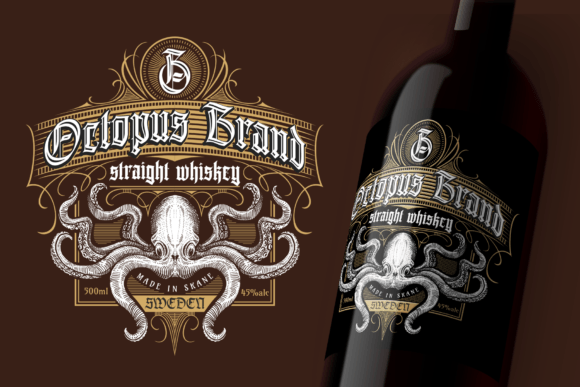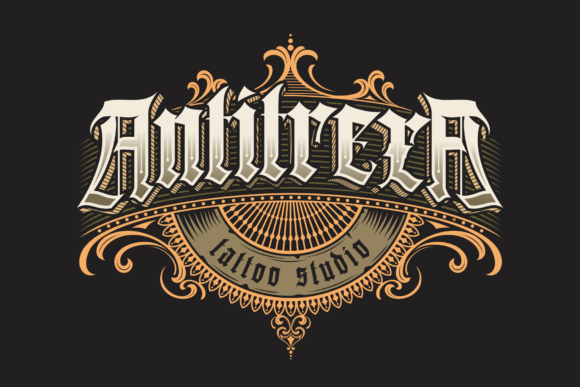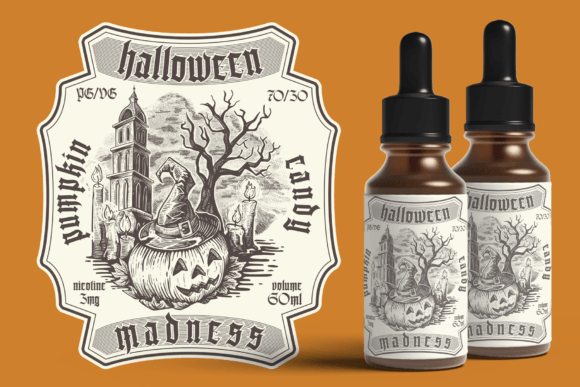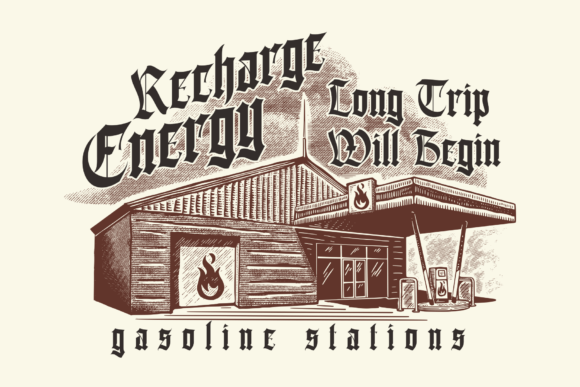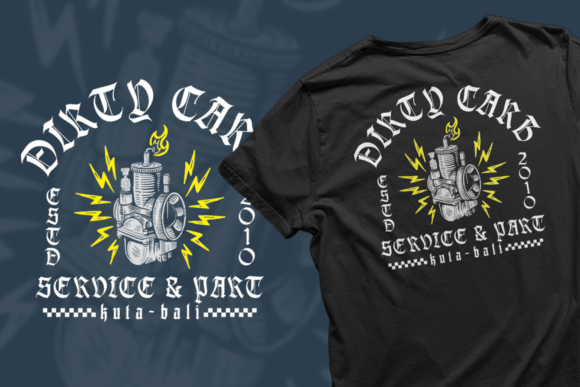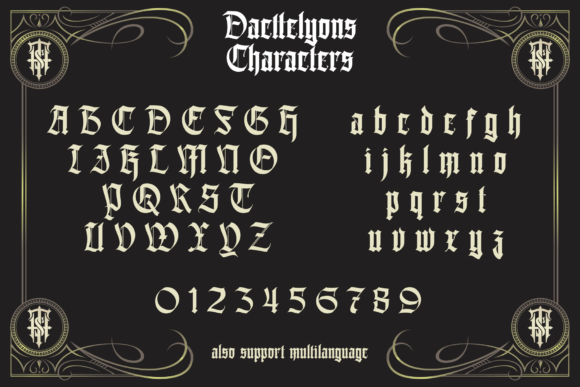
Dacttelyons Font: A Gothic-Inspired Blackletter Typeface for Vintage Designs
In the realm of typography, fonts play a crucial role in conveying the tone and aesthetic of a design. For designers and crafters seeking a vintage look with a dark feel, the Dacttelyons font is an excellent choice. Inspired by the Gothic era, this blackletter typeface is perfect for creating striking designs that evoke a sense of mystery and elegance.
The Inspiration Behind Dacttelyons
Dacttelyons is a font that draws inspiration from the Gothic era, a period characterized by grandeur, mystery, and ornate details. The font’s design is rooted in traditional blackletter typography, with intricate lines and flourishes that evoke a sense of nostalgia and timelessness. The creators of Dacttelyons aimed to capture the essence of this era, distilling its essence into a modern font that can be used in various design applications.
Design Characteristics of Dacttelyons
Dacttelyons is a blackletter typeface that features:
- Intricate lettering: The font boasts intricate lines, curves, and flourishes that give it a distinctive Gothic feel.
- Dark and bold: Dacttelyons is a bold font that commands attention, making it perfect for designs that require a strong visual impact.
- Vintage aesthetic: The font’s design is inspired by traditional Gothic typography, giving it a unique and timeless look.
Uses of Dacttelyons in Graphic Design
Dacttelyons is a versatile font that can be used in a wide range of graphic design applications, including:
- Branding materials: Use Dacttelyons to create striking logos, business cards, and letterheads that convey a sense of sophistication and elegance.
- T-shirts and apparel: The font’s bold design makes it perfect for printing on t-shirts, hoodies, and other apparel.
- Prints and posters: Dacttelyons is ideal for creating eye-catching prints, posters, and flyers that require a strong visual impact.
- Logos and icons: The font’s unique design makes it suitable for creating custom logos and icons that require a distinctive look.
- Packaging design: Use Dacttelyons to create striking packaging designs that stand out on store shelves.
Why Choose Dacttelyons?
With so many fonts available, why choose Dacttelyons? Here are a few reasons:
- Unique design: Dacttelyons offers a distinctive look that sets it apart from other fonts.
- Versatility: The font can be used in various design applications, from branding materials to packaging design.
- Ease of use: Dacttelyons is easy to read and works well in both digital and print formats.
Tips for Using Dacttelyons Effectively
To get the most out of Dacttelyons, follow these tips:
- Use it sparingly: Dacttelyons is a bold font, so use it sparingly to avoid overwhelming the design.
- Pair it with complementary fonts: Combine Dacttelyons with complementary fonts to create visual interest and hierarchy.
- Experiment with colors: The font’s dark design works well with a range of colors, so experiment to find the perfect combination.
Dacttelyons is a versatile and striking font that is perfect for designers and crafters seeking a vintage look with a dark feel. Inspired by the Gothic era, this blackletter typeface is suitable for a wide range of graphic design applications, from branding materials to packaging design. With its intricate design, bold aesthetic, and ease of use, Dacttelyons is an excellent choice for anyone looking to add a touch of elegance and mystery to their designs.